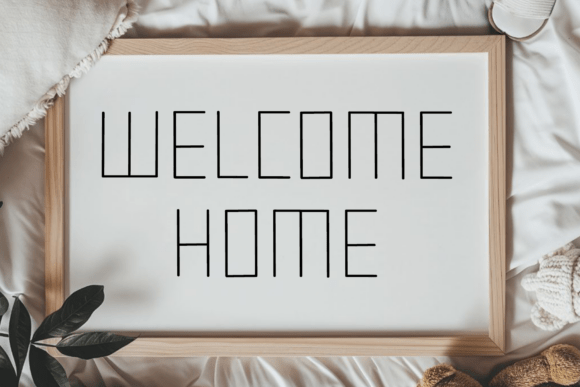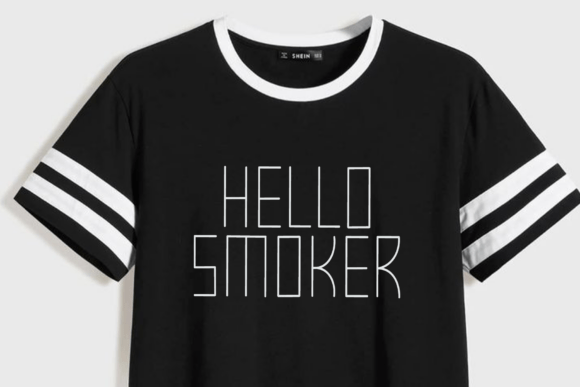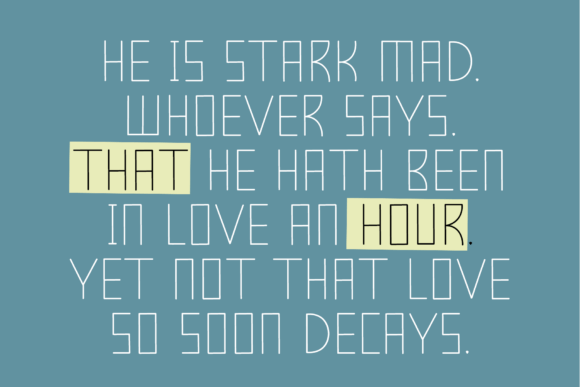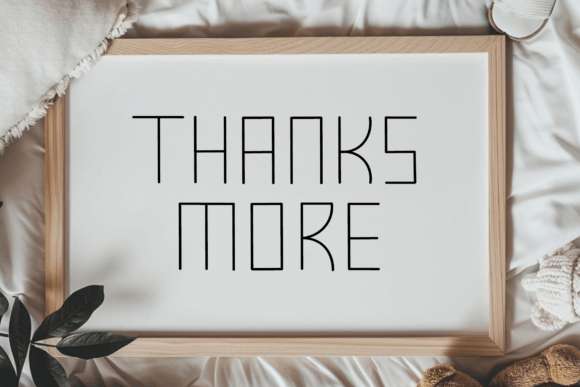
Introducing Calendar 2026 Font: The Epitome of Modern Typography
In the realm of typography, few fonts manage to strike a balance between form and function as elegantly as Calendar 2026 Font. This sleek and technical display font has been meticulously crafted to embody a minimalist, contemporary aesthetic, making it an indispensable asset for designers and crafters seeking to elevate their visual projects.
Calendar 2026 Font is distinguished by its exceptionally tall and narrow letterforms, which are rendered with a fine, monolinear stroke weight. This design choice lends the font an air of sophistication and elegance, setting it apart from more traditional typefaces. The minimalist structure of Calendar 2026 is further defined by sharp, geometric character joins and a generous amount of internal white space. This thoughtful design approach creates a visual rhythm that is both airy and professionally organized.
Versatility in Application
One of the key strengths of Calendar 2026 Font lies in its versatility. Its unique blend of modernity and functionality makes it an ideal choice for a wide range of applications. For architectural projects, the font’s sleek lines and minimalist aesthetic make it perfect for title blocks, adding a touch of contemporary flair to blueprints and design documents. In the realm of branding, tech-focused companies will find Calendar 2026 to be a valuable asset, as its modern look and feel can help to convey a sense of innovation and forward-thinking.
Editorial and Digital Use
Calendar 2026 Font is not limited to architectural or tech-related applications. Its minimalist elegance also makes it well-suited for use in editorial layouts, particularly in publications that prioritize clean design and sophisticated typography. Digital headers, too, can benefit from the font’s crisp, modern appearance, adding a professional touch to websites, apps, and digital platforms.
Why Choose Calendar 2026 Font?
For designers and crafters, the decision to use Calendar 2026 Font can be attributed to several key factors:
- Contemporary Aesthetic: In a design landscape where trends evolve rapidly, Calendar 2026 offers a timeless, contemporary look that can help projects stand out.
- Legibility: Despite its minimalist design, the font maintains exceptional legibility, ensuring that messages are conveyed clearly and effectively.
- Versatility: Its adaptability across various mediums and applications makes Calendar 2026 a practical choice for a wide array of projects.
- Ease of Integration: Designed with the user in mind, Calendar 2026 can be easily integrated into various design workflows, supporting both digital and print applications.
Tips for Using Calendar 2026 Font
To maximize the impact of Calendar 2026 Font in your designs, consider the following tips:
- Pair with Complementary Fonts: While Calendar 2026 is striking on its own, it can also be paired with complementary fonts to create visual interest and hierarchy.
- Experiment with Scale: The font’s tall and narrow letterforms offer a range of possibilities when it comes to scale. Experiment with different sizes to achieve the desired visual effect.
- Utilize White Space: Embrace the generous internal white space of Calendar 2026 by allowing for ample margins and padding, which can enhance the overall aesthetic and readability of your design.
Calendar 2026 Font represents a significant addition to the world of typography, offering a unique blend of modernity, functionality, and elegance. Whether you’re working on architectural projects, tech branding, editorial layouts, or digital headers, this font provides the tools necessary to create visually compelling and professionally organized designs. By incorporating Calendar 2026 into your typographic arsenal, you can ensure that your projects not only meet but exceed the expectations of a discerning audience.